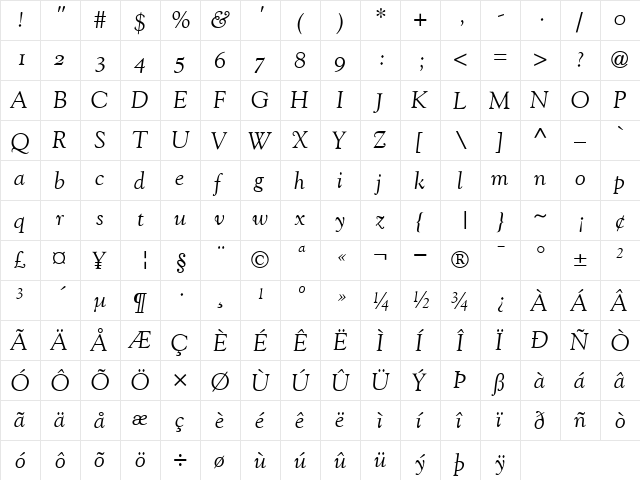
GoudyOldStyleFigures RomanItalic
Design Context for GoudyOldStyleFigures Typeface
GoudyOldStyleFigures brings classic typographic sensibility to the table — its serifs and measured letterforms reflect centuries of print heritage. Its italic angle brings a sense of urgency and motion to the letterforms.
Pro Tip: Use GoudyOldStyleFigures for editorial body copy and considered headline work. Pair with a neutral sans for UI elements or captions to create a classic hierarchy.